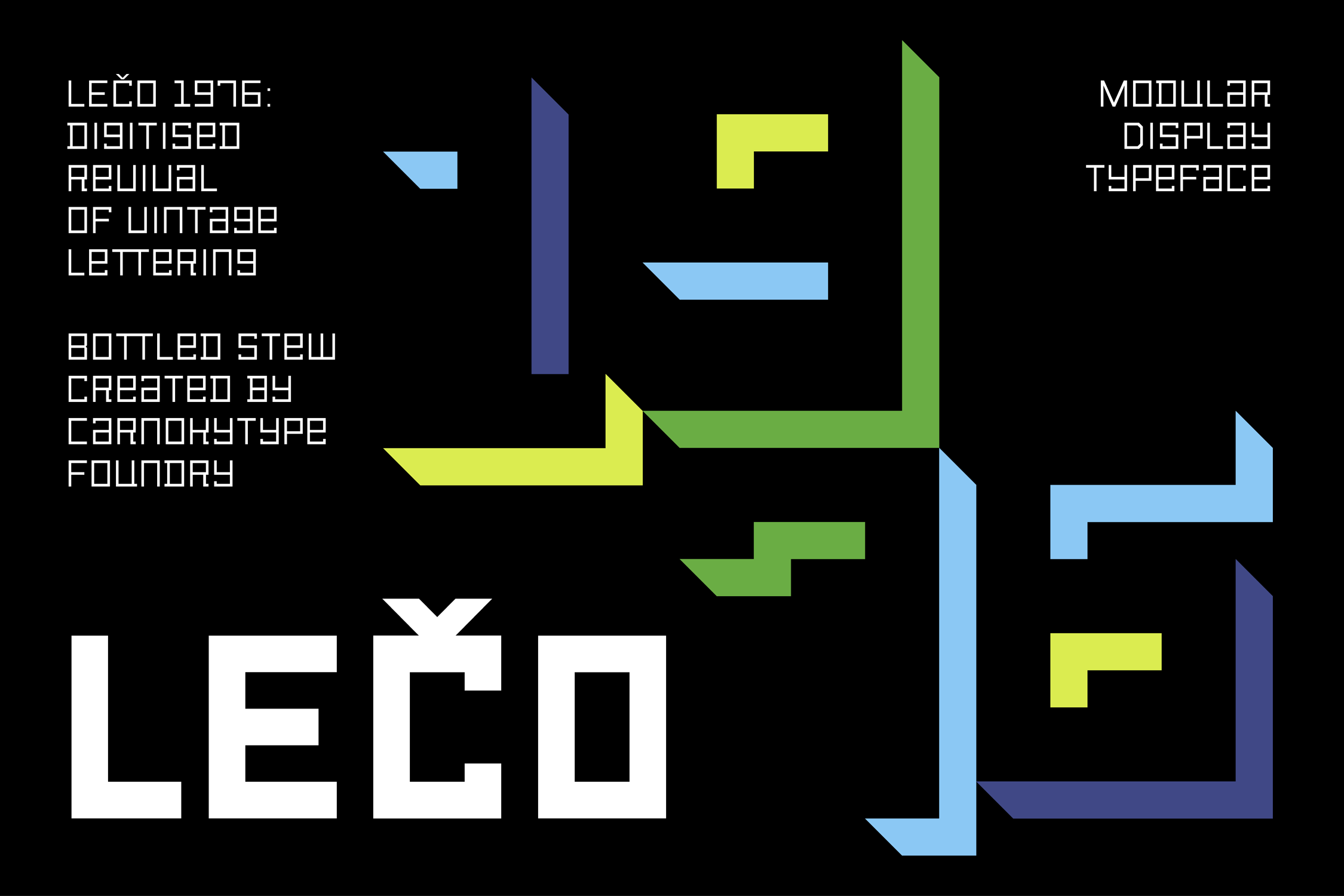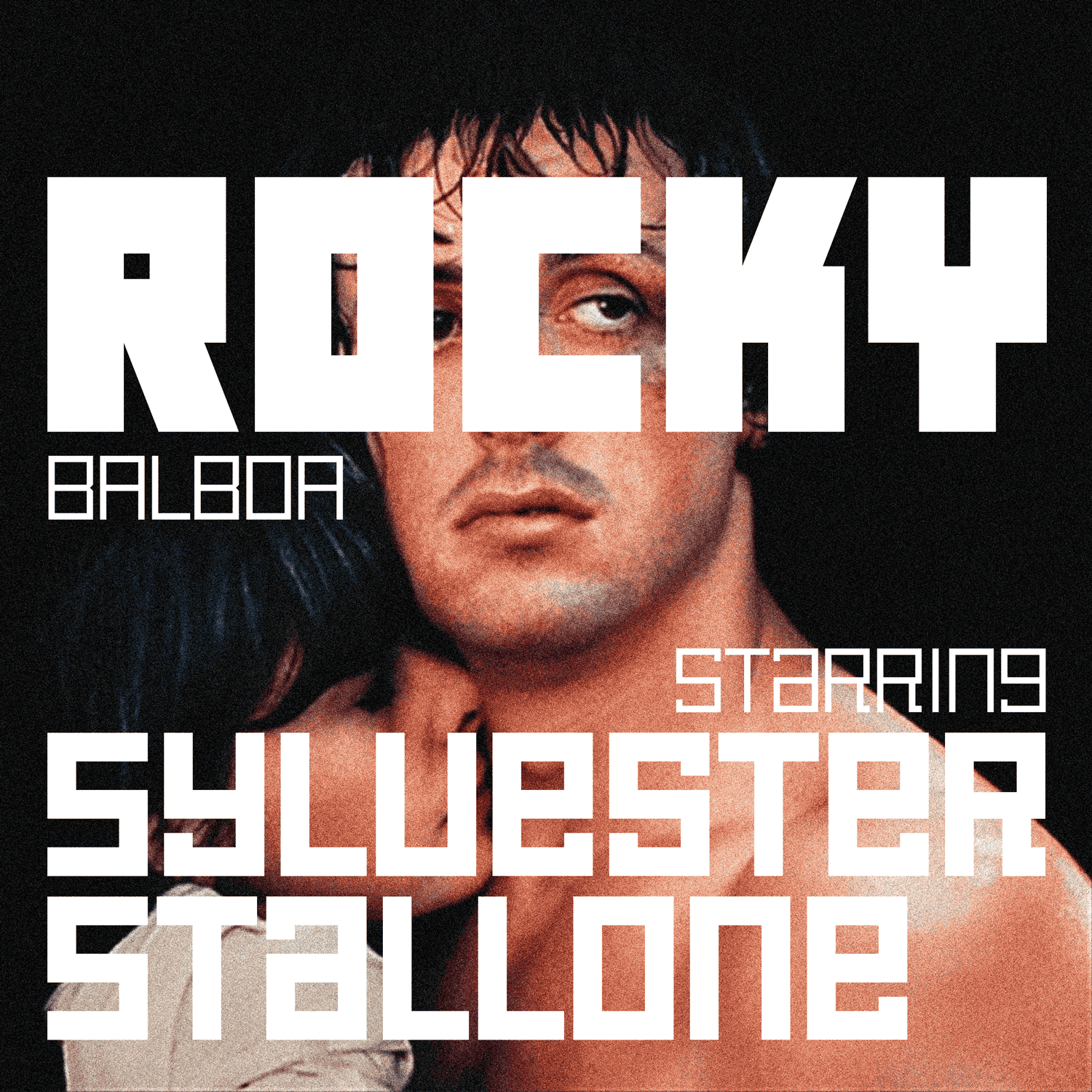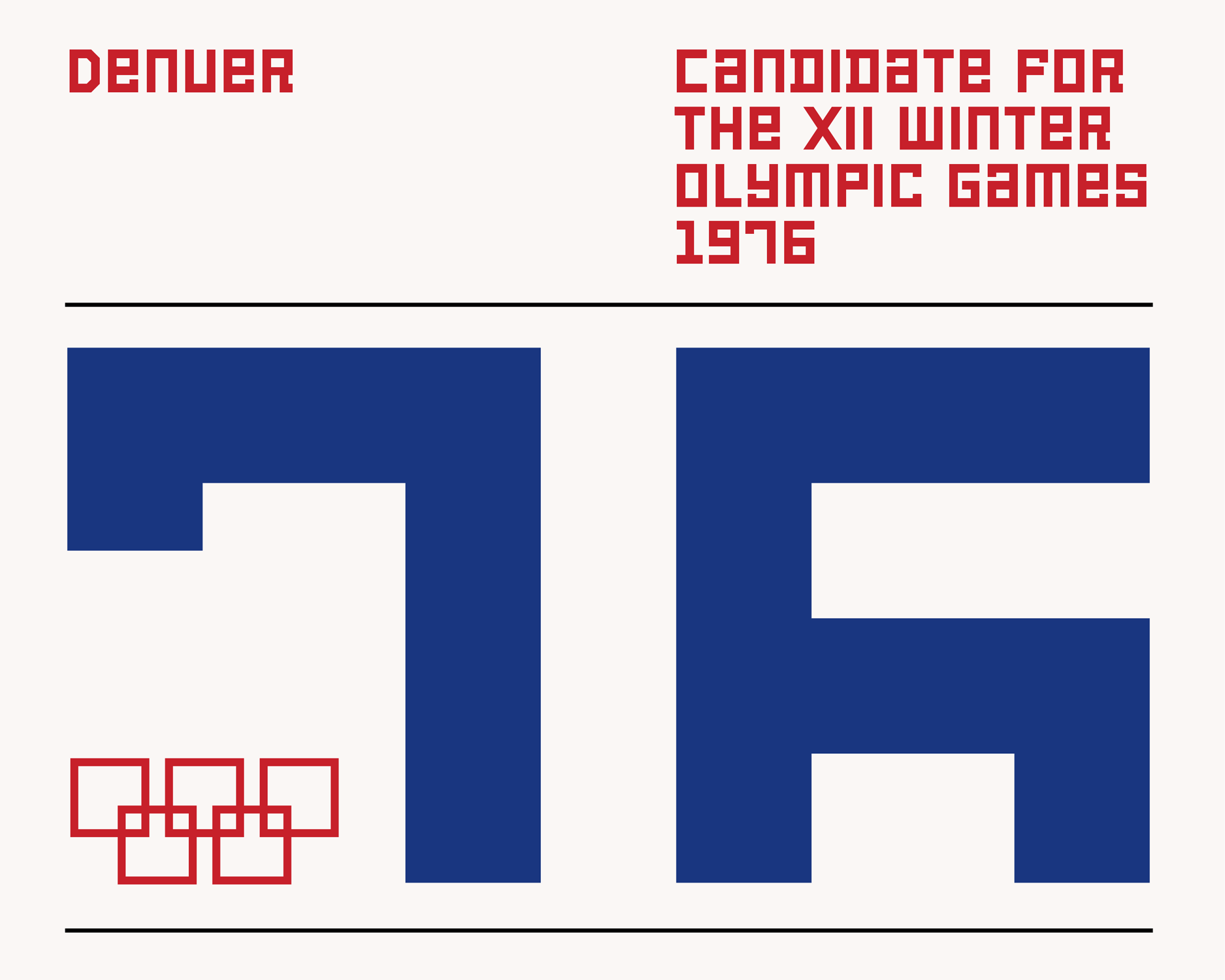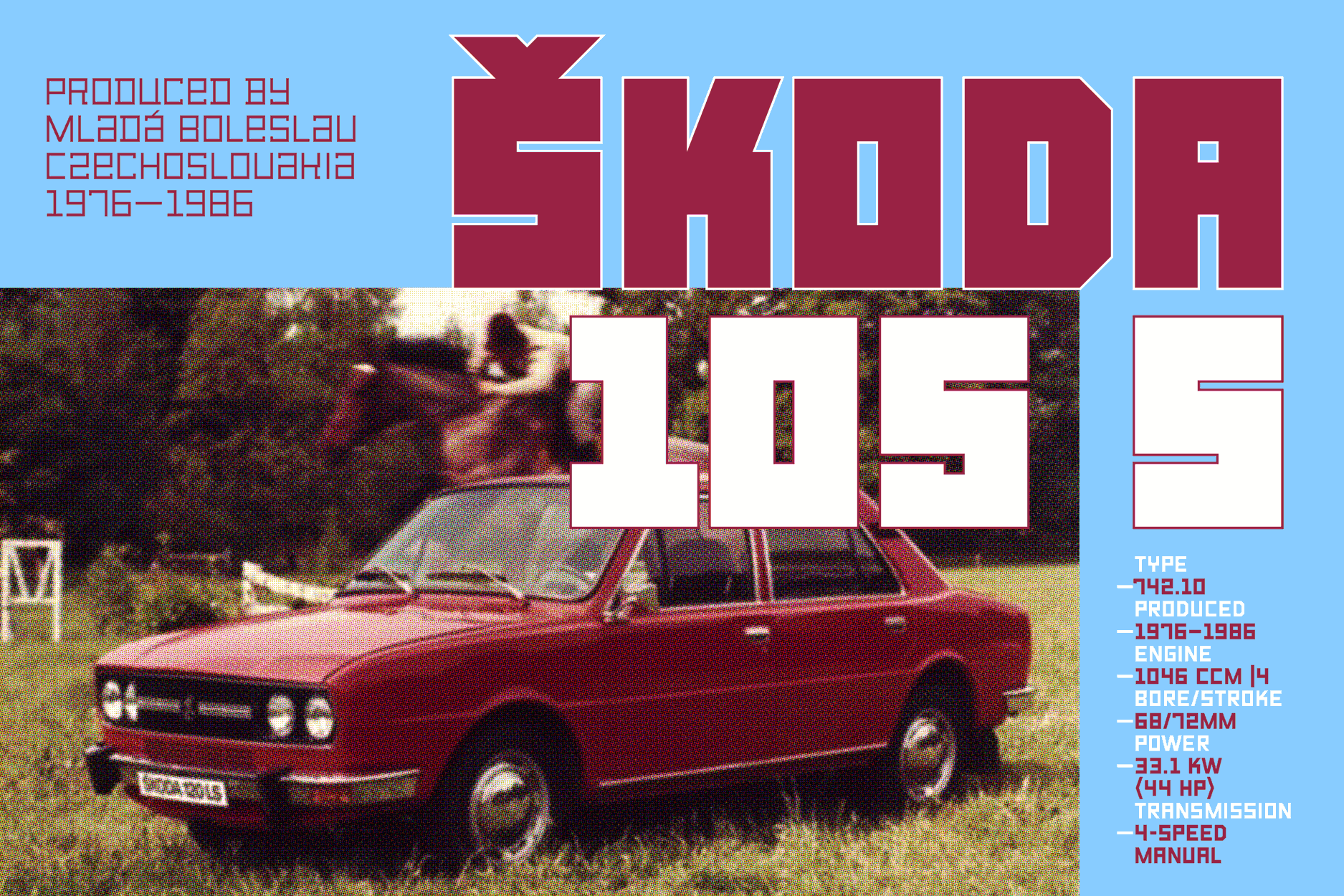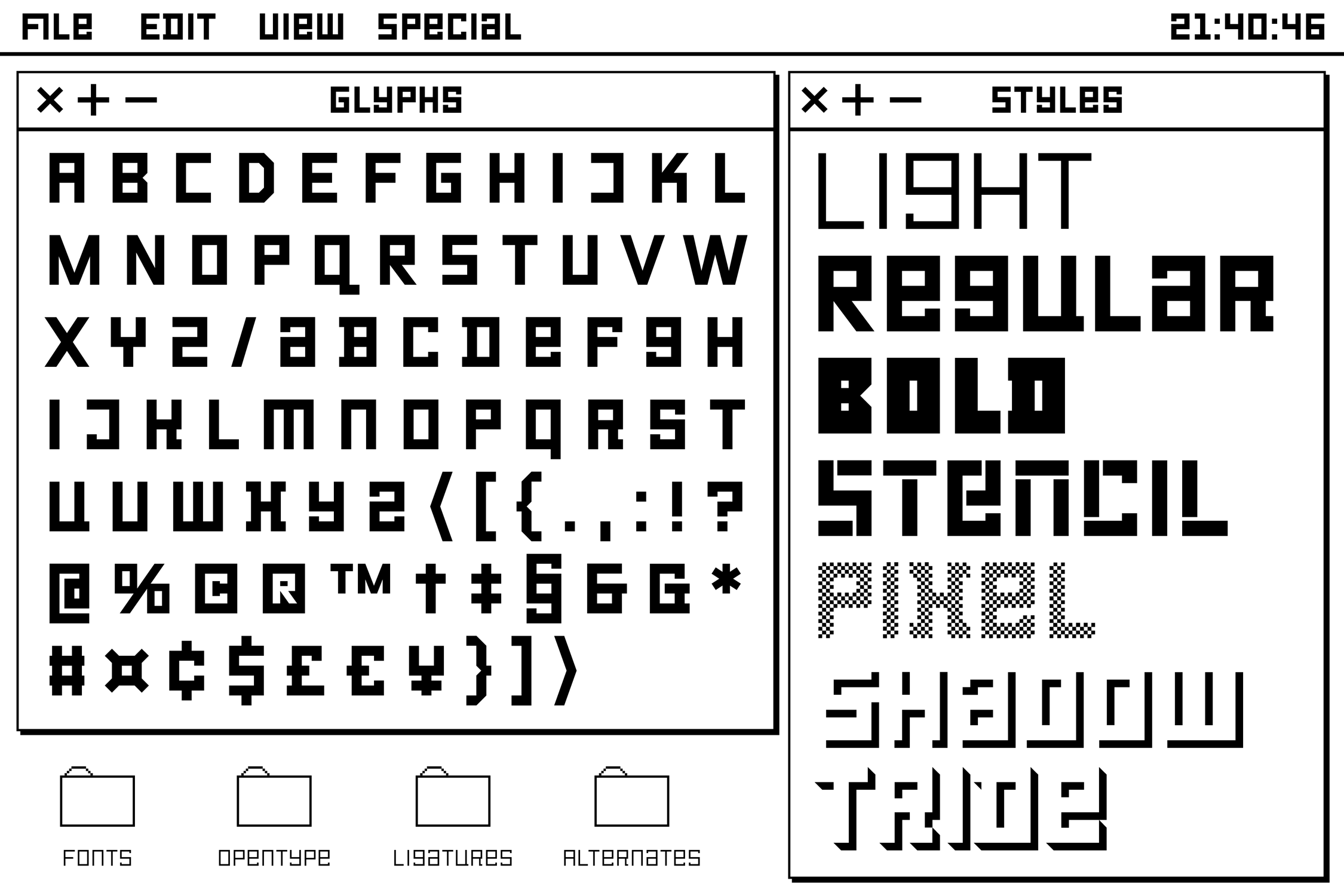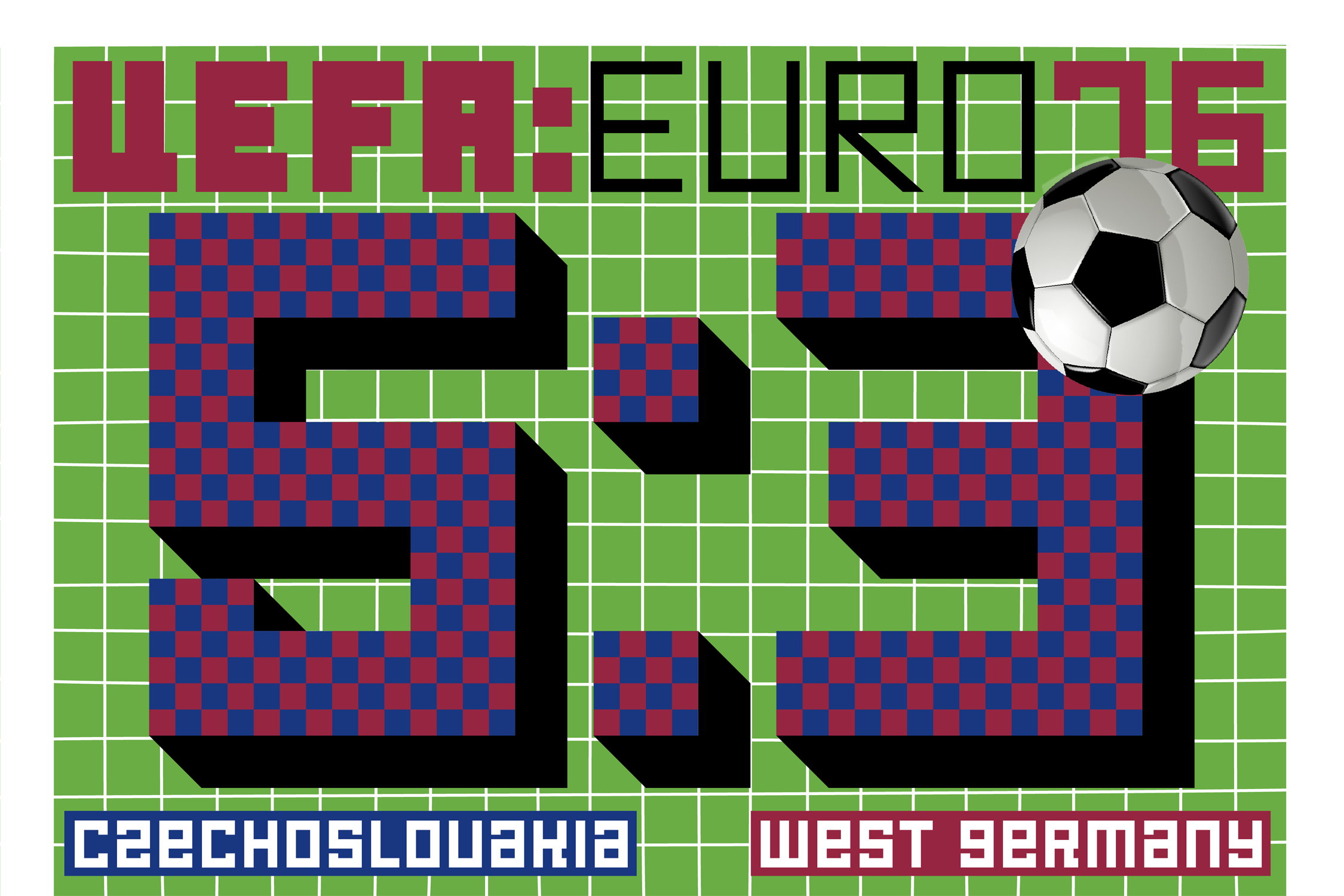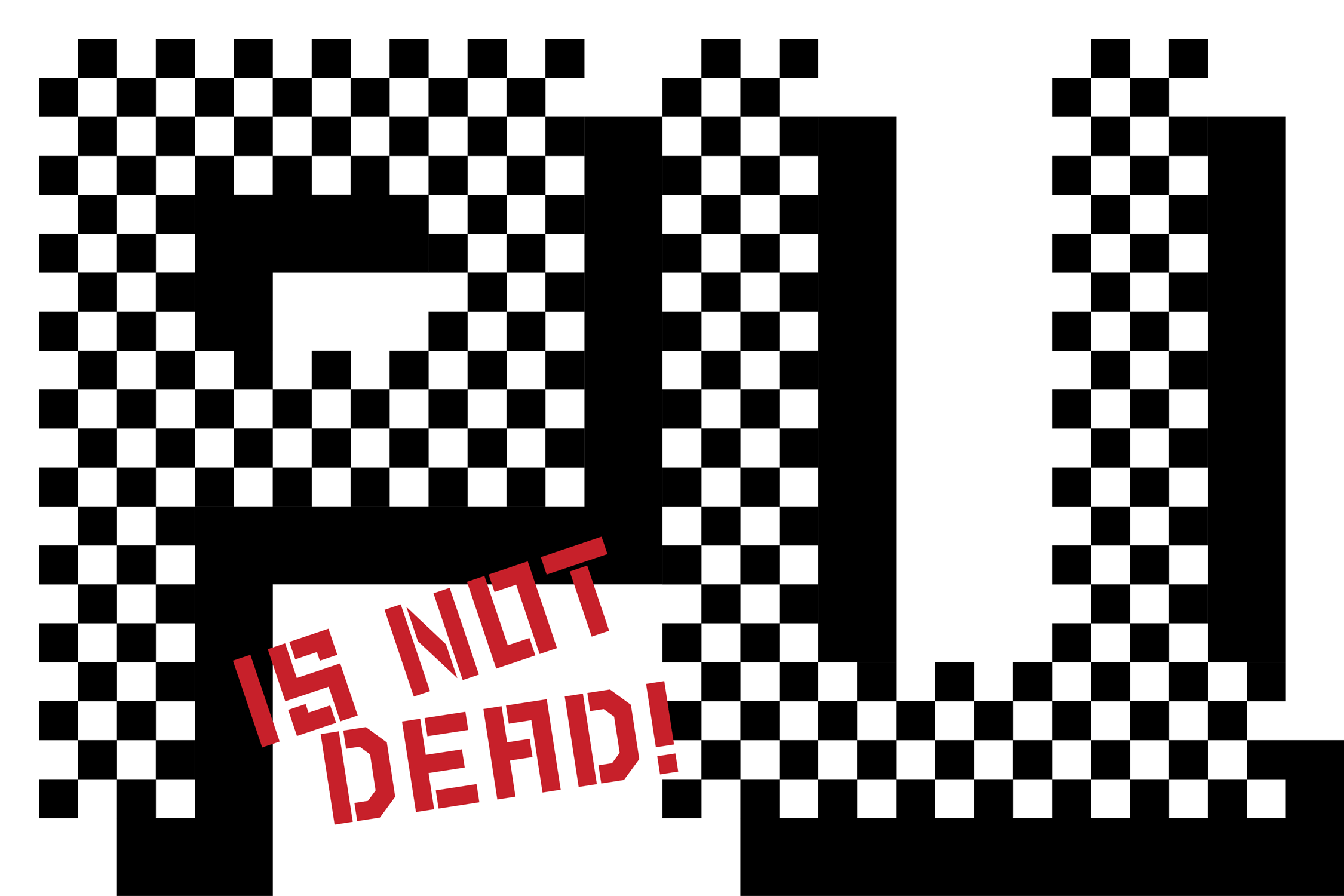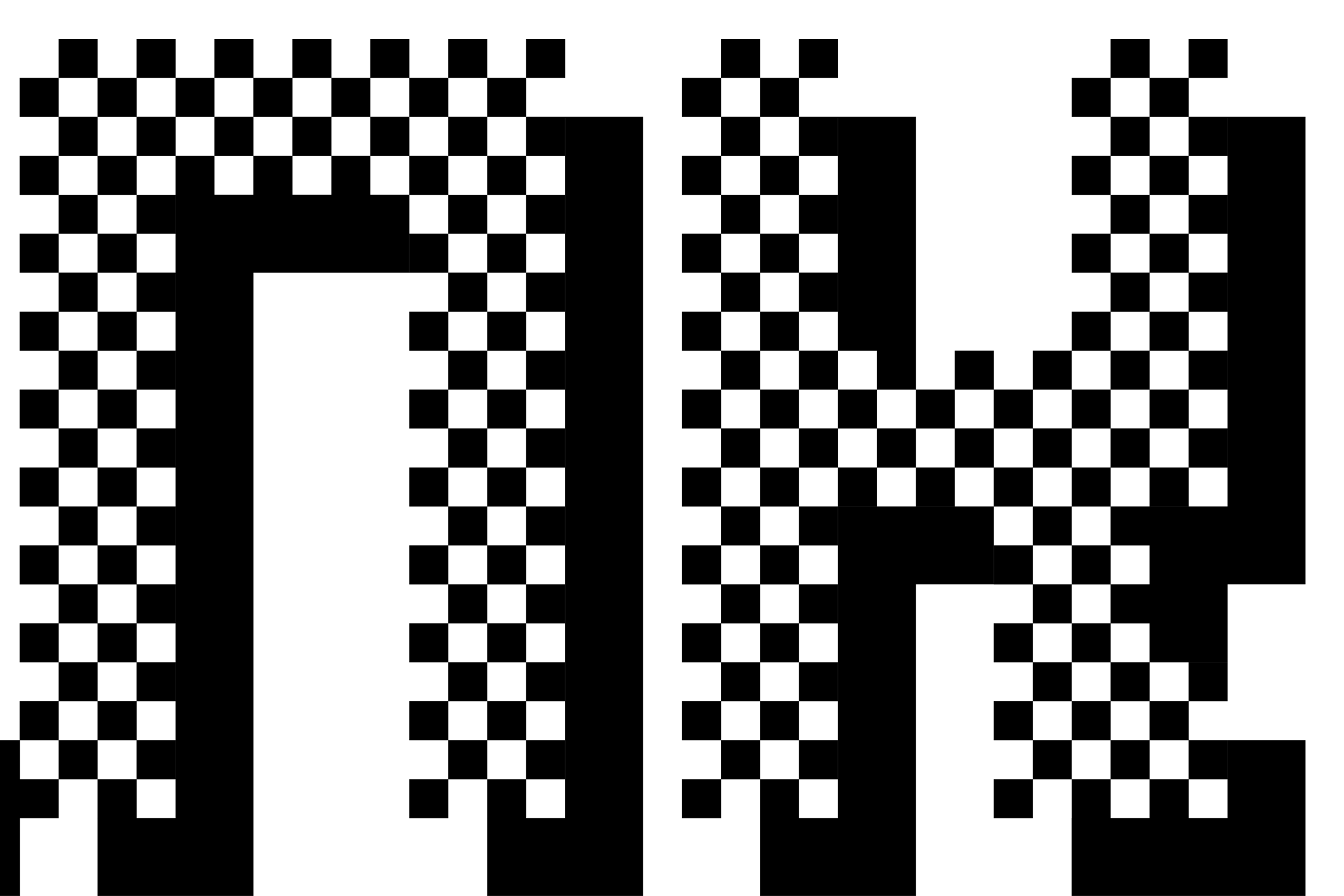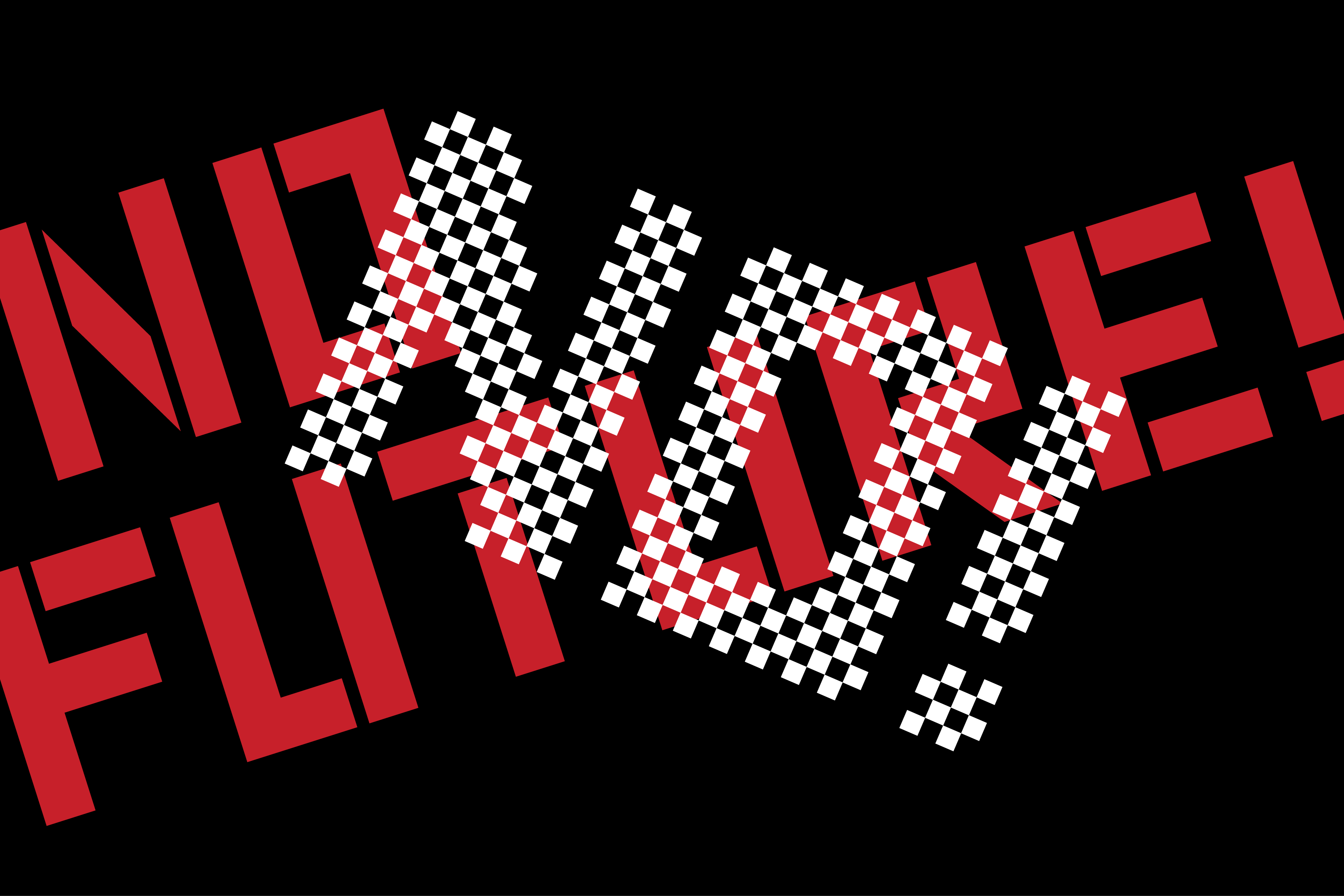
LECO 1976
One of the Lečo (bottled stew) series comes from the year when Apple was formed by Steve Jobs and Steve Wozniak, the punk rock group the Ramones release their first album, and Czechoslovakia beat West Germany 5 : 3 on penalties to win Euro 76. LECO 1976 is a revival of the zeitgeist when popular digital visual language was born.